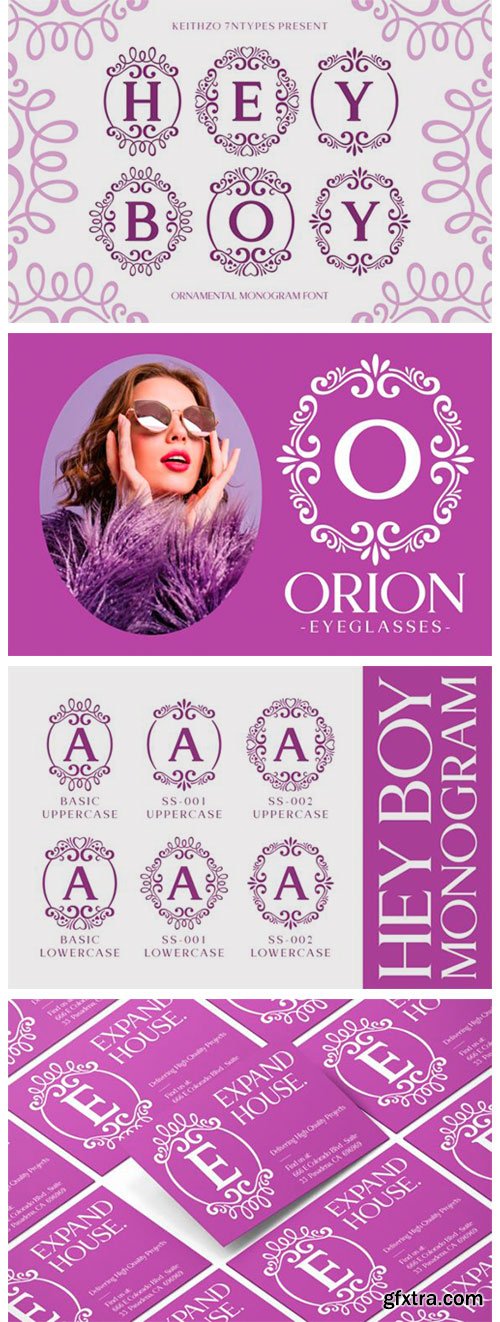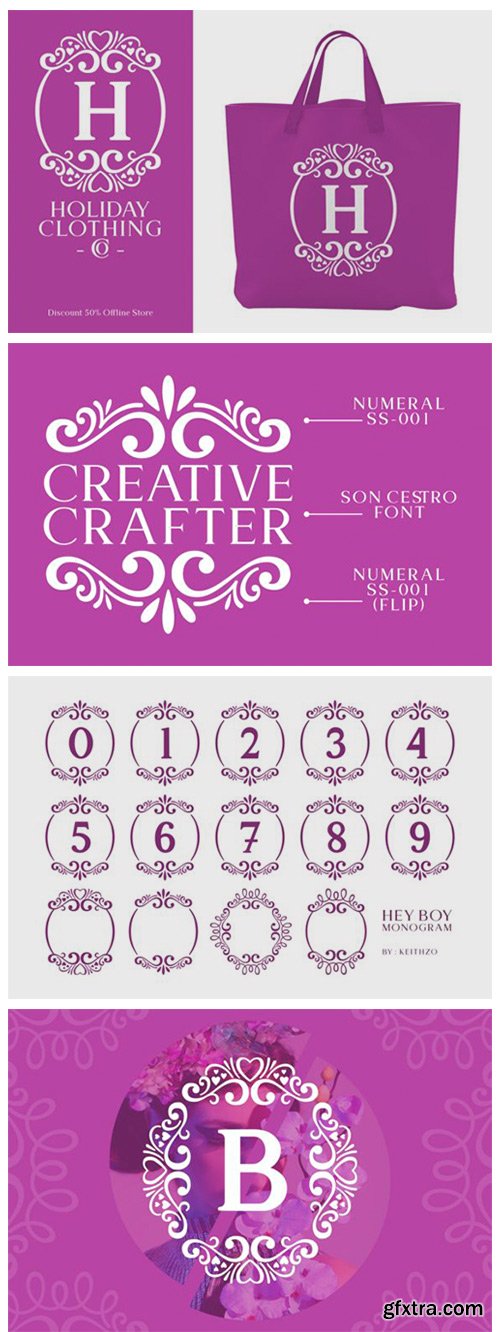
Hey Boy Font
Make your designs stand out with Hey Boy, a stylish and unique decorative font. It will look stunning on posters, thank you cards, quotes, greeting cards, logos, business cards and every other design which needs a creative touch. This font is PUA encoded which means you can access all of the glyphs and swashes with ease!